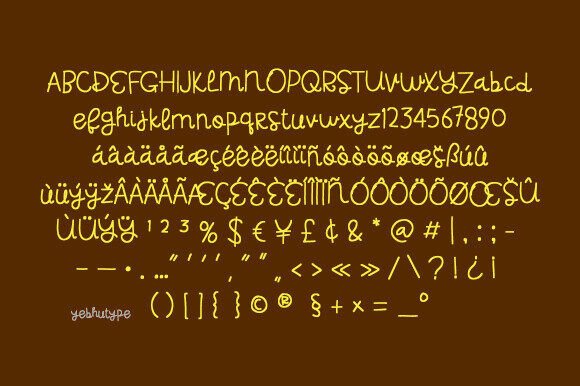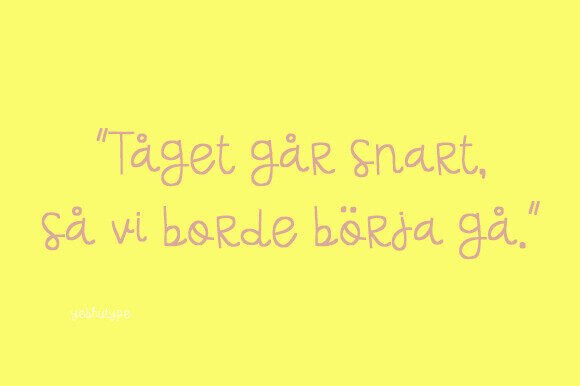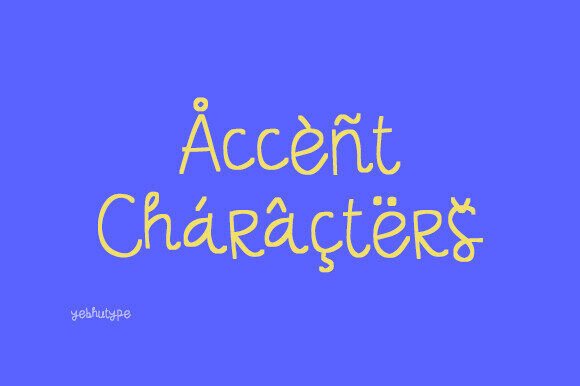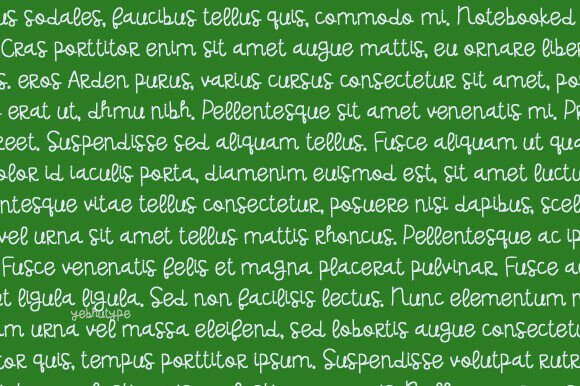
Discover the Whimsical Charm of Arden Font
I’ll never forget the design moment that led me to fall in love with Arden Font. I was working on a project for a client who wanted a playful, yet elegant look for their branding. As I scrolled through font after font, nothing seemed quite right – until I stumbled upon Arden. Its quirky rhythm and soft, looping forms instantly captured the joy of expressive writing and the human touch of spontaneous creativity. I knew right then and there that Arden was the perfect fit.
A Personal Review of Arden Font
- ✅ The whimsical, handwritten feel that adds a touch of personality to any design
- ✅ The soft, looping forms that create a sense of warmth and approachability
- ✅ The quirky rhythm that sets it apart from more traditional fonts
- ✅ The versatility – it works beautifully for both digital and print projects
While Arden Font is incredibly charming, there are a few things to keep in mind:
- 🤔 It may not be the best choice for very formal or corporate designs, as it leans more towards playful and creative
- ⚠️ Some of the more intricate glyphs may not display as clearly at very small font sizes
The Story Behind Arden Font
Arden Font was designed with the intention of capturing the joy of expressive writing and the human touch of spontaneous creativity. Its designer aimed to create a font that felt approachable, yet elegant – perfect for designs that need a touch of personality.
| Font Name | Arden Font |
| Author | yebhutype |
Q: What makes Arden Font unique?
A: Arden Font’s unique blend of whimsy, warmth, and casual elegance sets it apart from other fonts.
Q: Is Arden Font suitable for body text?
A: While Arden Font is beautiful, it’s best suited for headings and titles. For body text, a clearer font may be more readable.